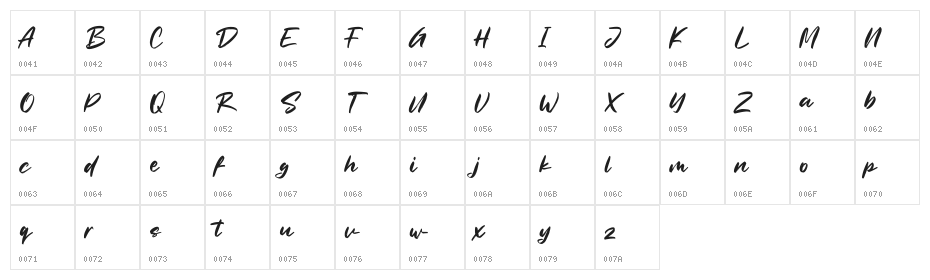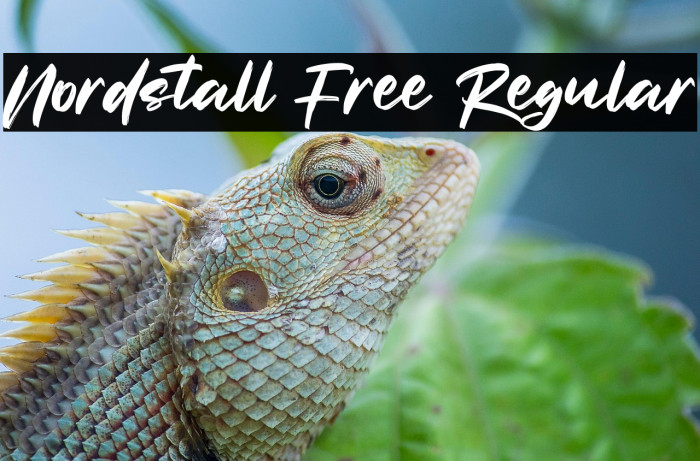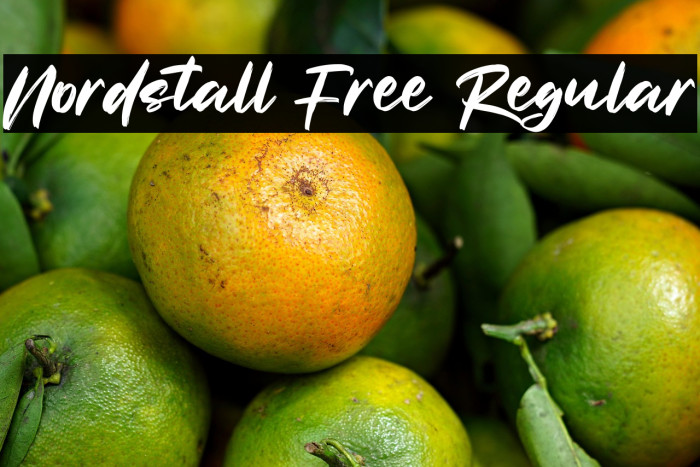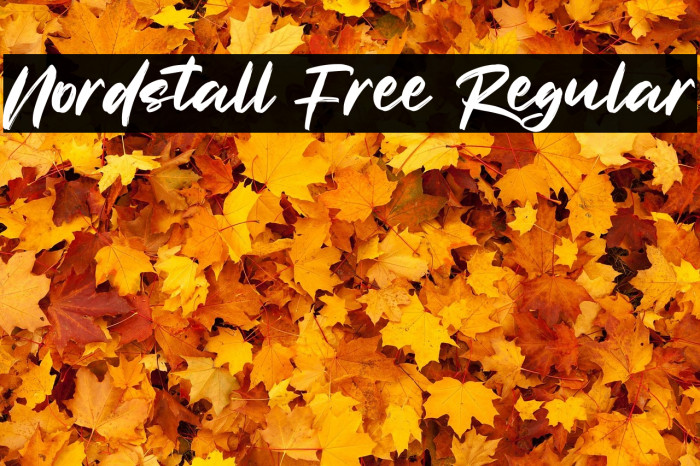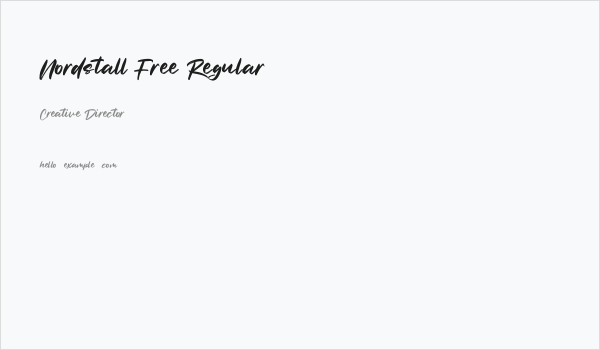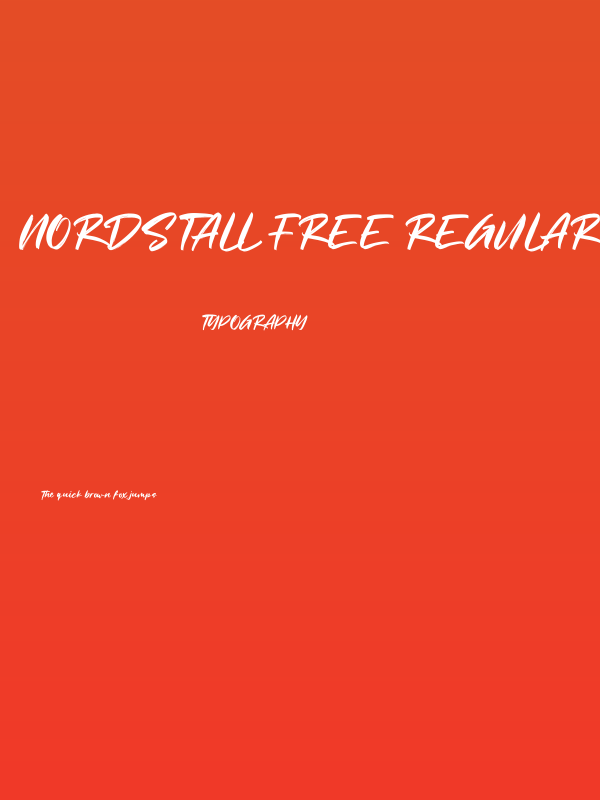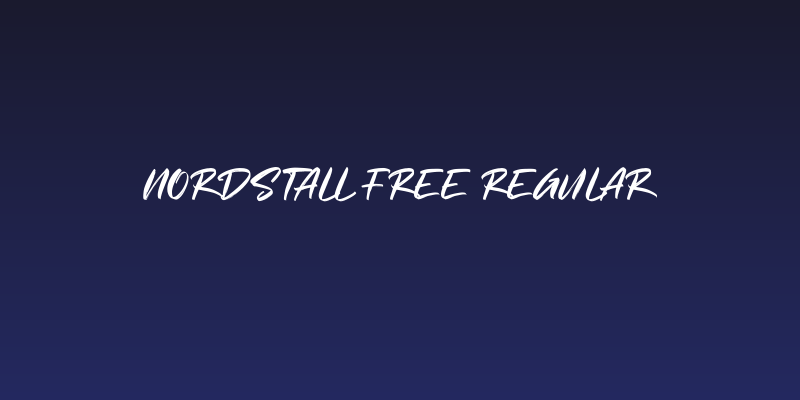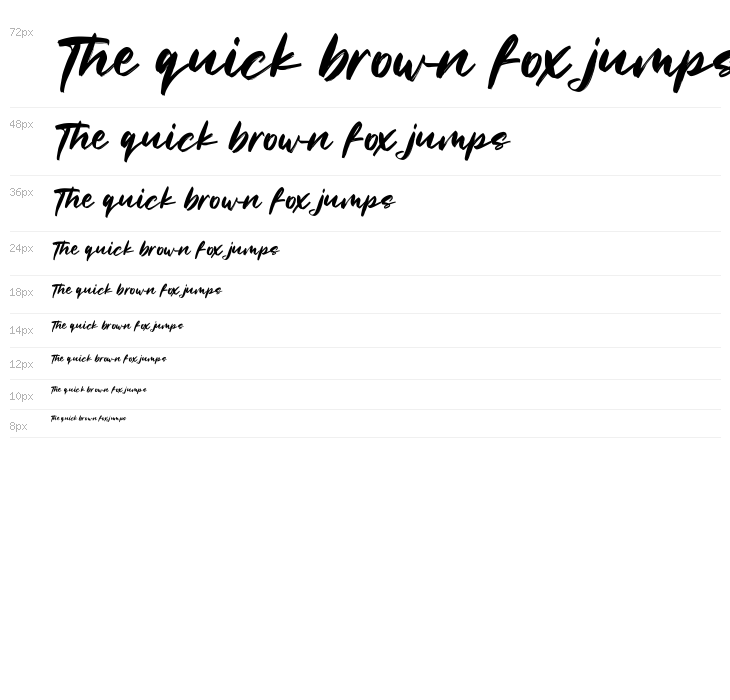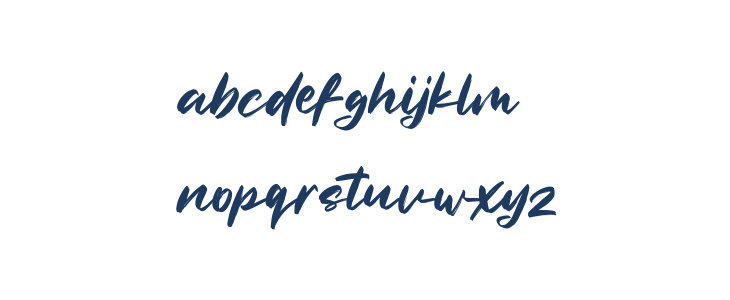
Nordstall Free Regular Font
Nordstall Free Regular Description
This font exudes a dynamic and energetic style, characterized by its bold, sweeping strokes and fluid, cursive design. Each letter is crafted with a sense of motion, giving the text a lively and expressive appearance. The uppercase and lowercase letters maintain a consistent flow, with slightly exaggerated curves and angles that enhance its handwritten aesthetic. The font's overall look is both modern and artistic, making it suitable for projects that require a personal touch or a creative flair. Its unique style is perfect for capturing attention and conveying a sense of individuality.